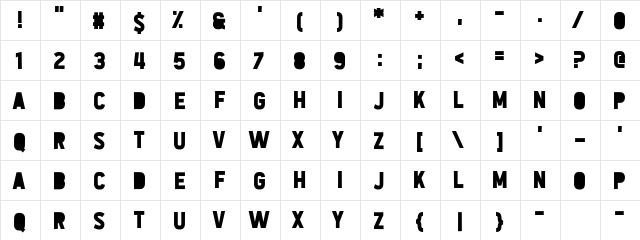
None Away from the Moon Regular
| Designer | Allison James |
Design Context for None Away from the Moon Typeface
None Away from the Moon takes a measured approach to typography — its balanced proportions and neutral character make it a reliable workhorse for both digital and print work.